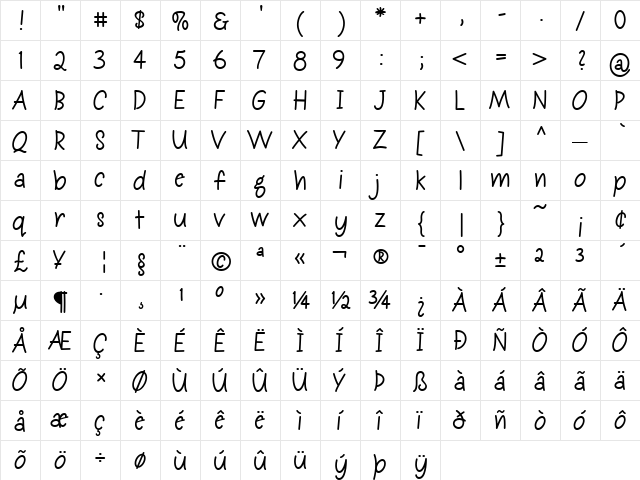
Sharpie Regular
| Foundry | TYPADELIC FONTS |
| Designer | Ronna Penner |
Sharpie takes a measured approach to typography — its balanced proportions and neutral character make it a reliable workhorse for both digital and print work.